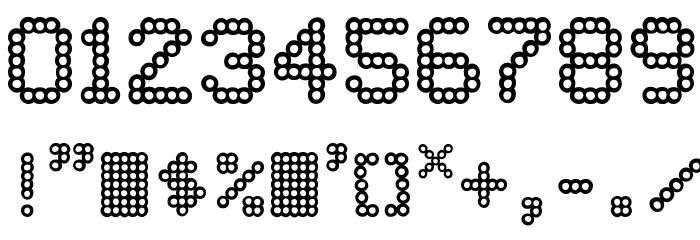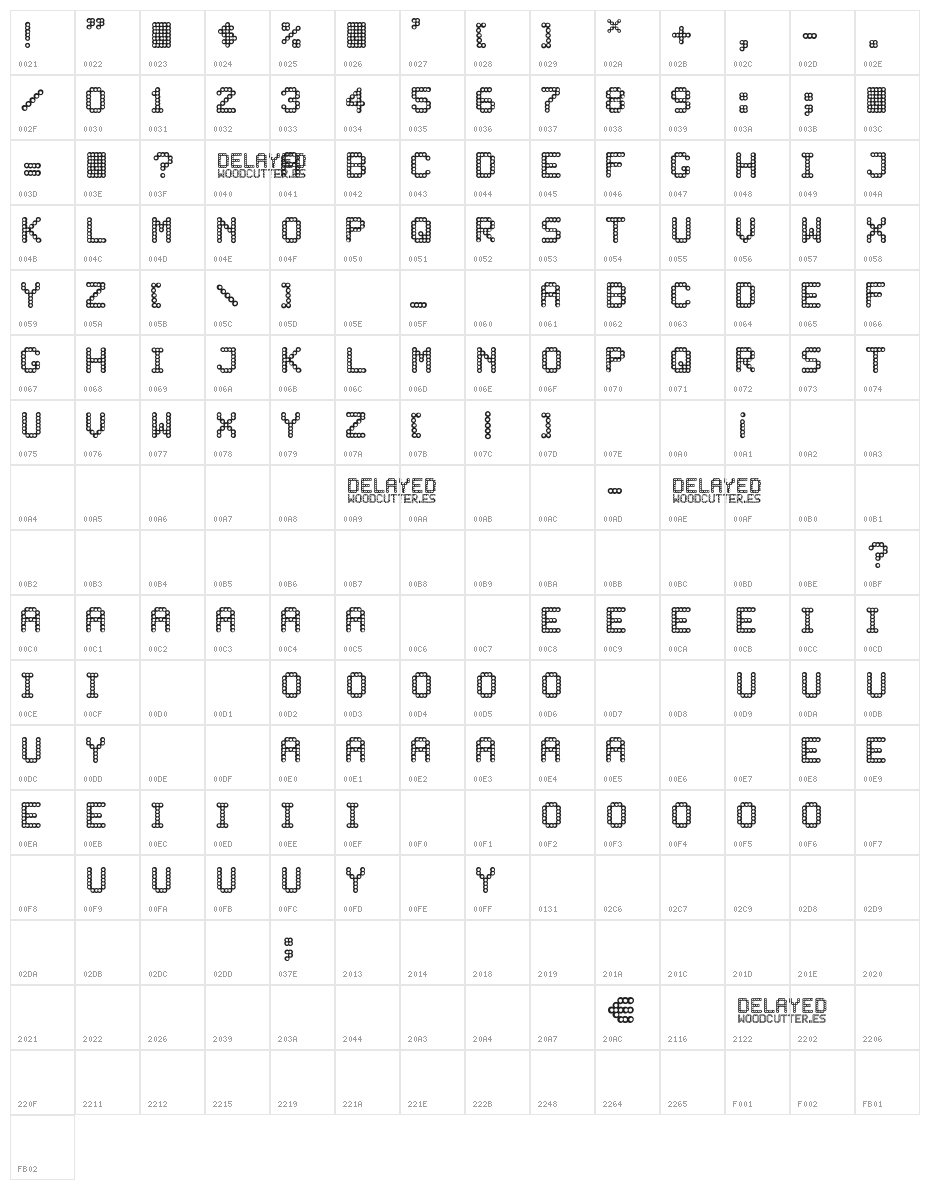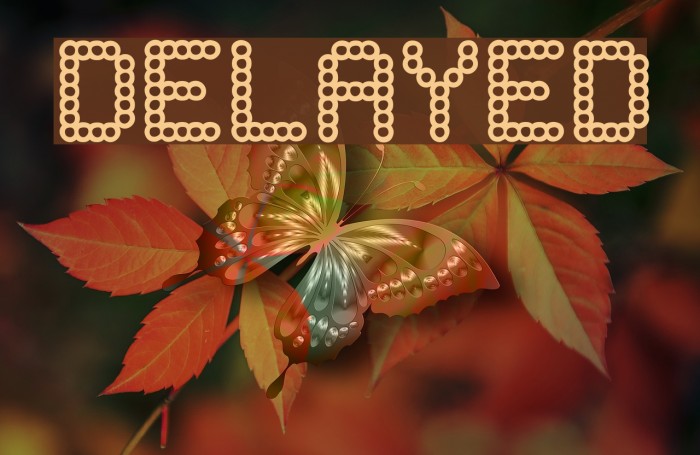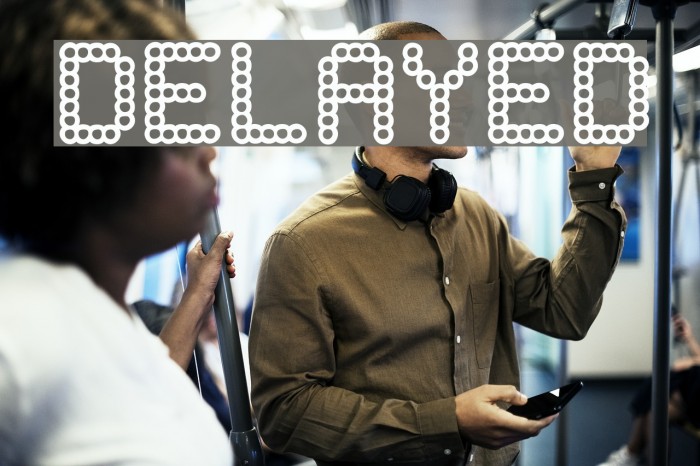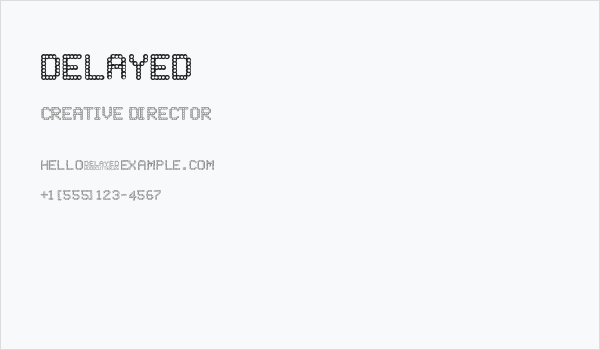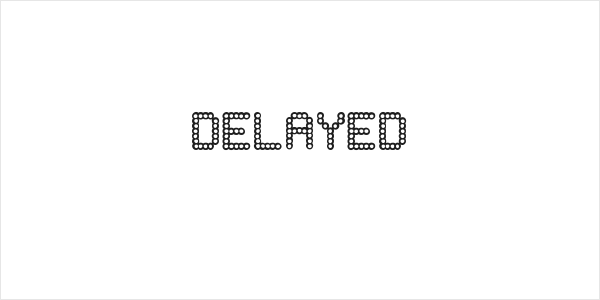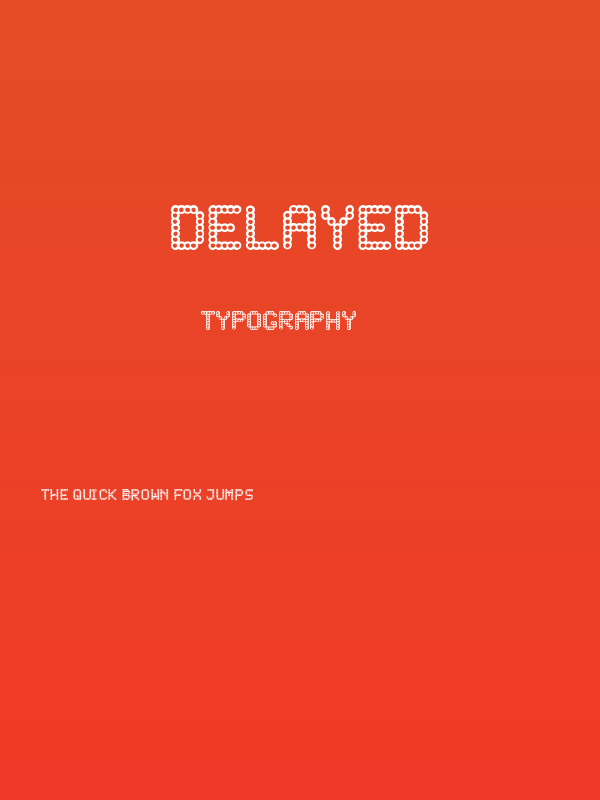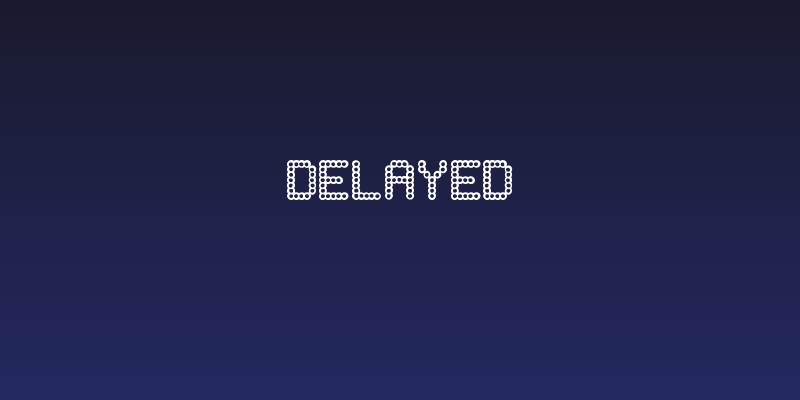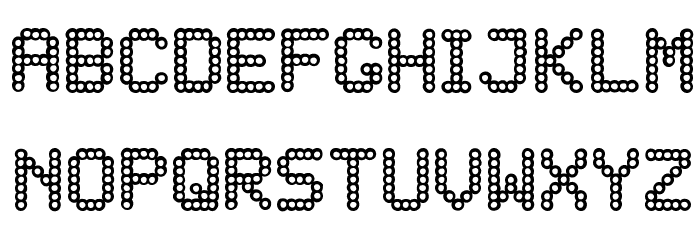
DELAYED Font
DELAYED Description
This font features a unique design where each character is composed of a series of small, evenly spaced circles, creating a dotted effect. The characters are structured in a grid-like pattern, giving them a geometric and modern appearance. The uniformity of the dots provides a consistent texture across all letters and numbers, while the spacing between the dots ensures readability. This style is particularly eye-catching and can be used to convey a sense of digital or technological themes. The font maintains a balance between decorative and functional, making it suitable for various creative applications.
| Use Case | Headlines, Logos, Digital displays |
| Proposed Projects | Ideal for digital displays, tech-themed posters, modern art projects, and creative branding. |